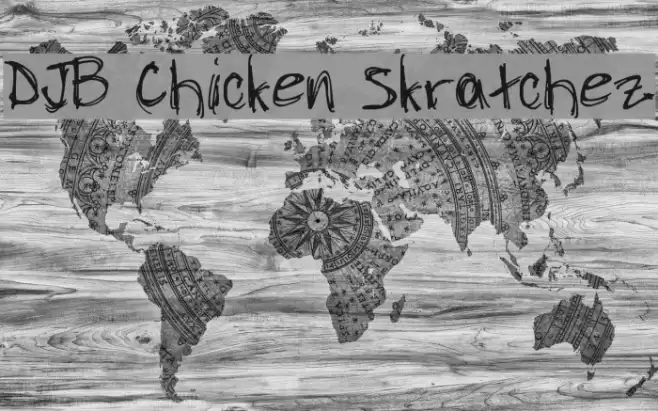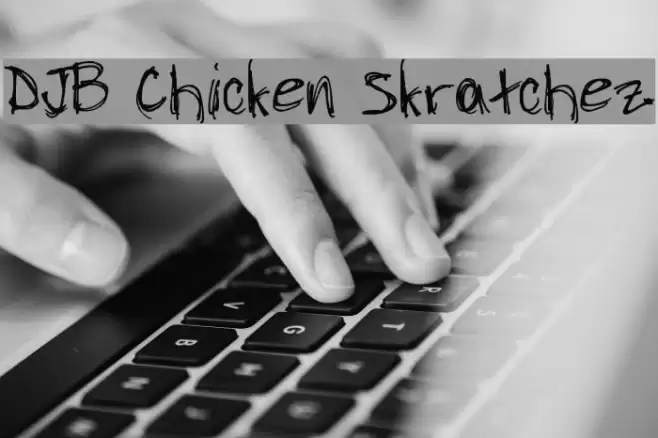
DJB Chicken Skratchez Font
DJB Chicken Skratchez Description
This font exudes a playful and energetic vibe, characterized by its hand-drawn, sketch-like appearance. The letters are irregular and dynamic, with strokes that vary in thickness, giving it a lively and spontaneous feel. The uppercase and lowercase letters maintain a consistent style, with exaggerated curves and angles that add to its whimsical nature. Numbers and special characters follow the same energetic design, making the font versatile for creative projects. The overall look is informal and artistic, perfect for adding a personal touch to any design.
A playful, hand-drawn font with an energetic and sketch-like appearance from Uncategorized fonts.
- Proposed Projects: Ideal for children's book covers, playful posters, casual invitations, and creative branding.